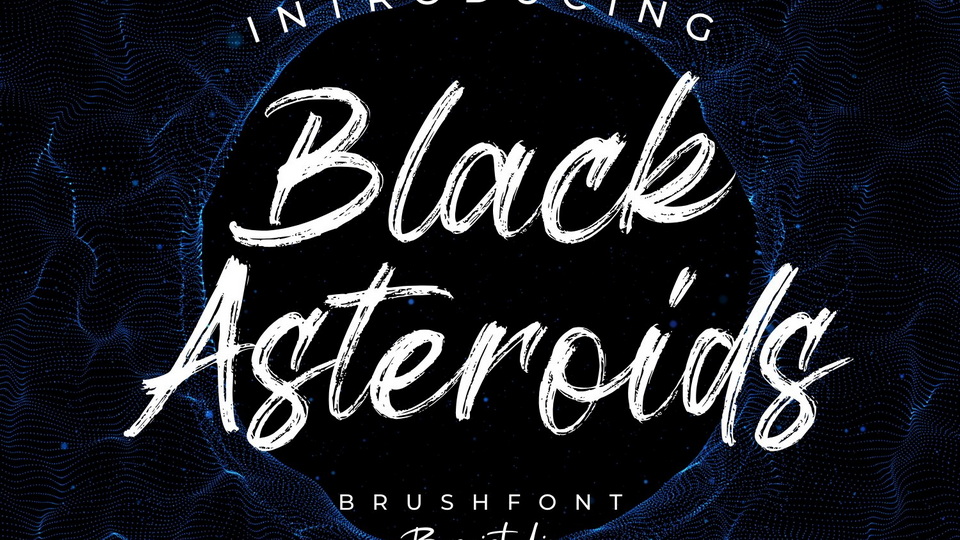
Download Black Asteroids font, an energetic hand painted brush typeface, made with natural rough strokes and unique style, perfect for branding, websites, and editorial designs.